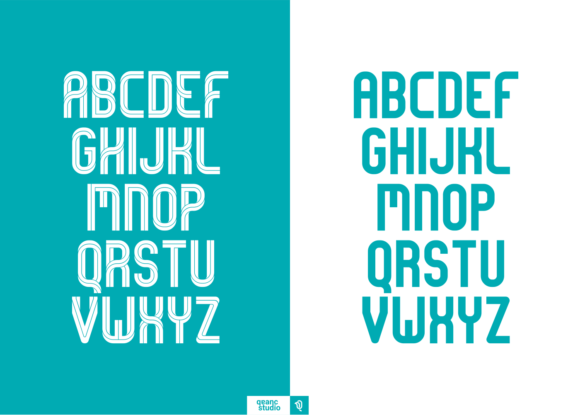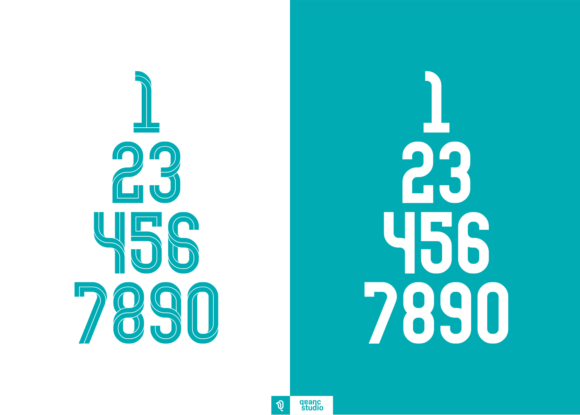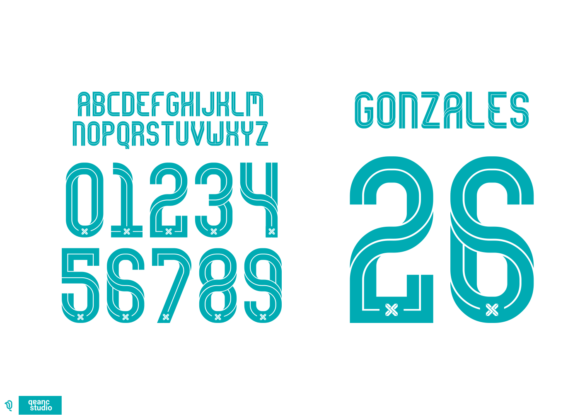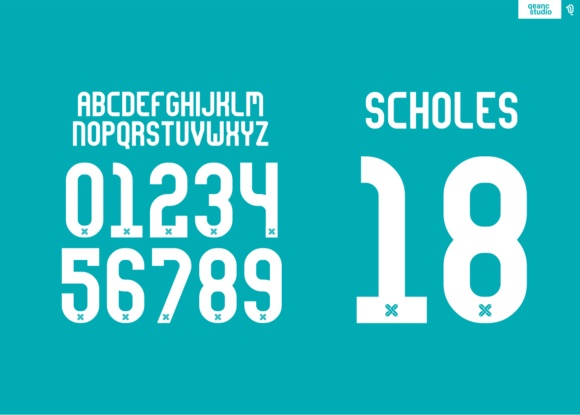
Introduction to Oyramus Font
As designers, we’ve all been there – staring at a blank canvas, trying to come up with the perfect idea for our next creative project. But sometimes, all it takes is one spark to set our imagination ablaze. For me, that spark was the Oyramus Font. Its sleek, modern design and bold lines immediately caught my attention, transporting me to the high-energy world of football.
But what makes the Oyramus Font truly special is its versatility. Whether you’re working on a logo, poster, or t-shirt design, this font is sure to add a touch of excitement and dynamism to your project. And with its transparent background, you can easily layer it with other design elements to create a high-quality visual effect.
Oyramus Font
- Unique, creative font perfect for various design projects, including branding and advertising materials.
- High-quality font with a transparent background, ideal for use on both light and dark backgrounds.
- Designed with a focus on readability and aesthetic appeal, making it an excellent choice for creative projects.
- Available in a range of sizes and resolutions, including 300 DPI, ensuring crisp and clear display on various devices.
- Easy to customize and modify to suit the specific needs of your creative project, thanks to its highly versatile design.
Honest Review: Oyramus Font
- ✨ The font is highly customizable, allowing for a range of styles and sizes to suit any design need.
- ✨ The transparent background option is a bonus, making it easy to layer over other design elements.
- ✨ The high-quality design is evident in every detail, from the subtle textures to the elegant lines.
- ⚠️ Some users may find the font’s unique style overwhelming or difficult to read in certain contexts.
Overall, I’m thoroughly impressed with the Oyramus Font. Its versatility, high-quality design, and free download make it an excellent addition to any designer’s toolkit. While there are some limitations to consider, I believe the benefits far outweigh the drawbacks.
Oyramus Font
The Oyramus Font is perfect for logos, branding materials, and creative projects where a unique font is required. It’s also great for presentations, posters, and infographics.
Tips for Getting the Most Out of Oyramus Font
Experiment with different font sizes, colors, and combinations to create a unique look. Use the font in conjunction with other design elements to add depth and interest to your design.